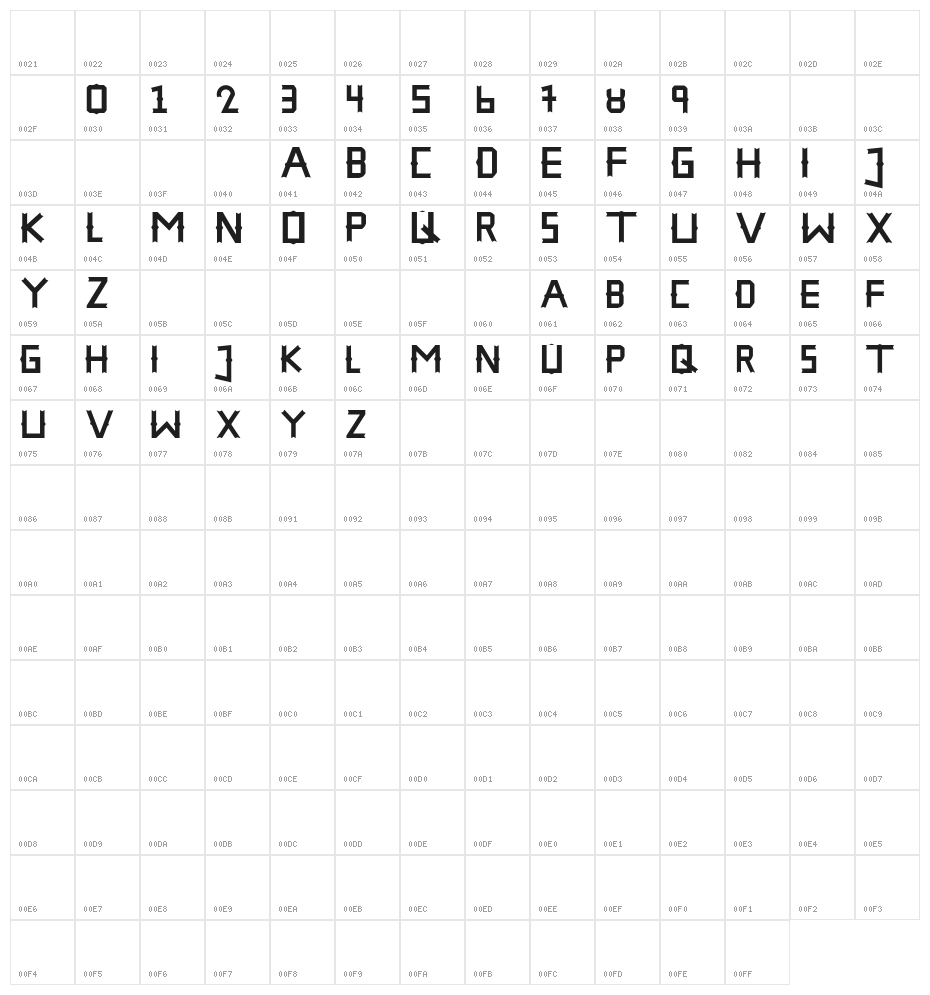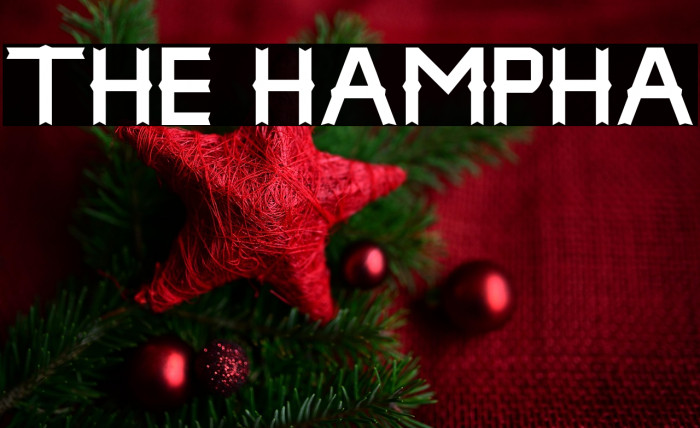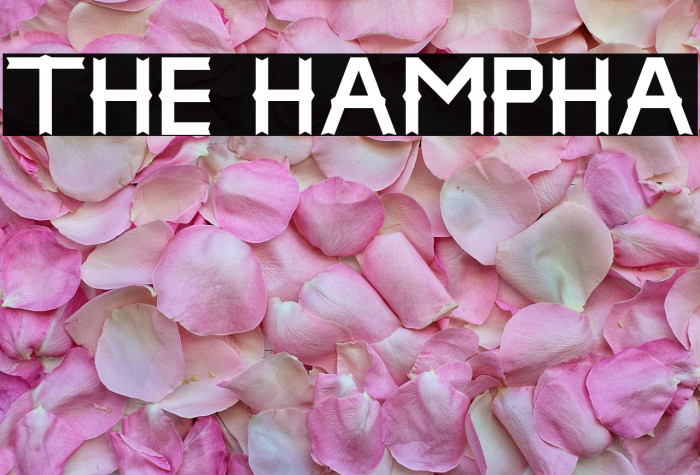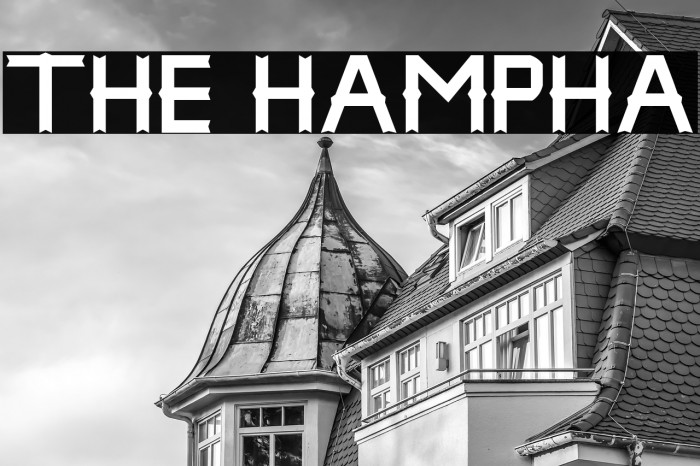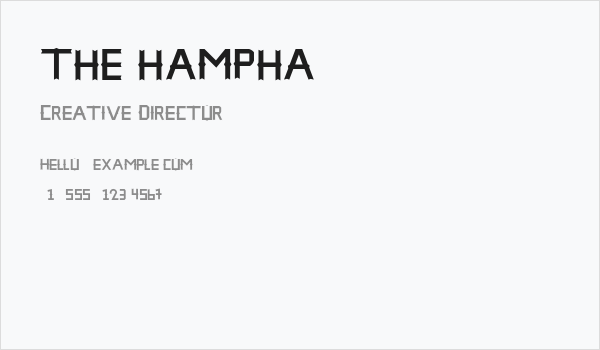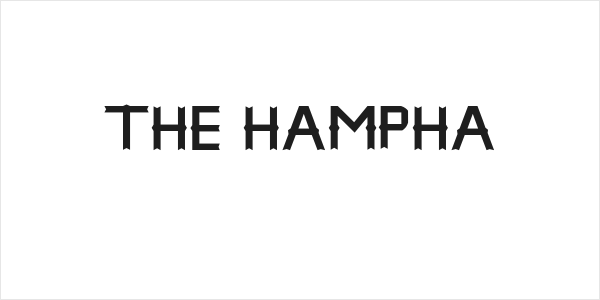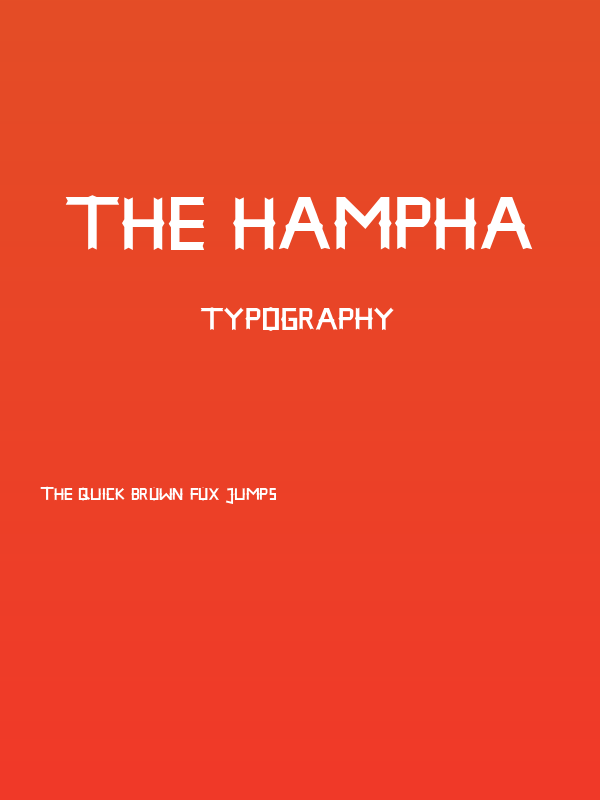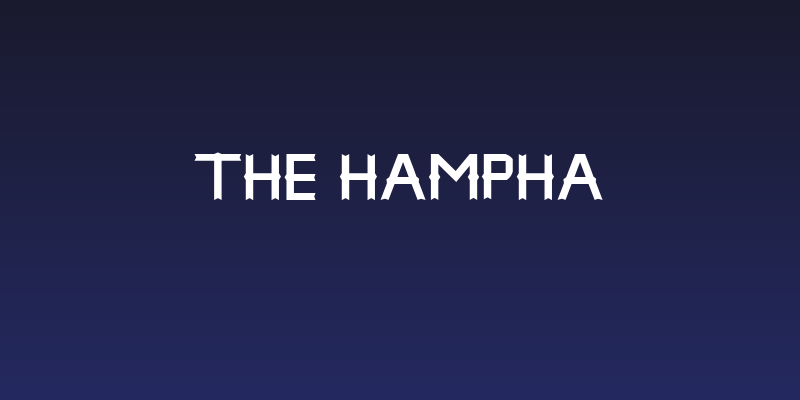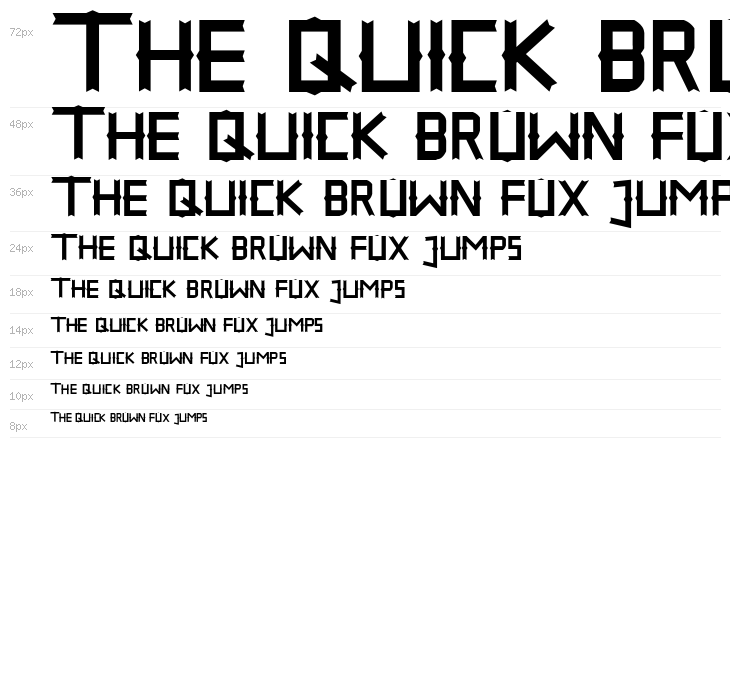
THE HAMPHA Font
THE HAMPHA Description
This font features a bold and angular design, characterized by sharp edges and geometric shapes. The uppercase letters exhibit a strong presence with a modern, industrial feel. The numerals and special characters maintain this robust style, ensuring consistency across all glyphs. The font's unique structure makes it stand out, with each character displaying a distinct personality while maintaining overall harmony. Its boldness and angularity suggest a sense of strength and modernity, making it suitable for impactful designs.